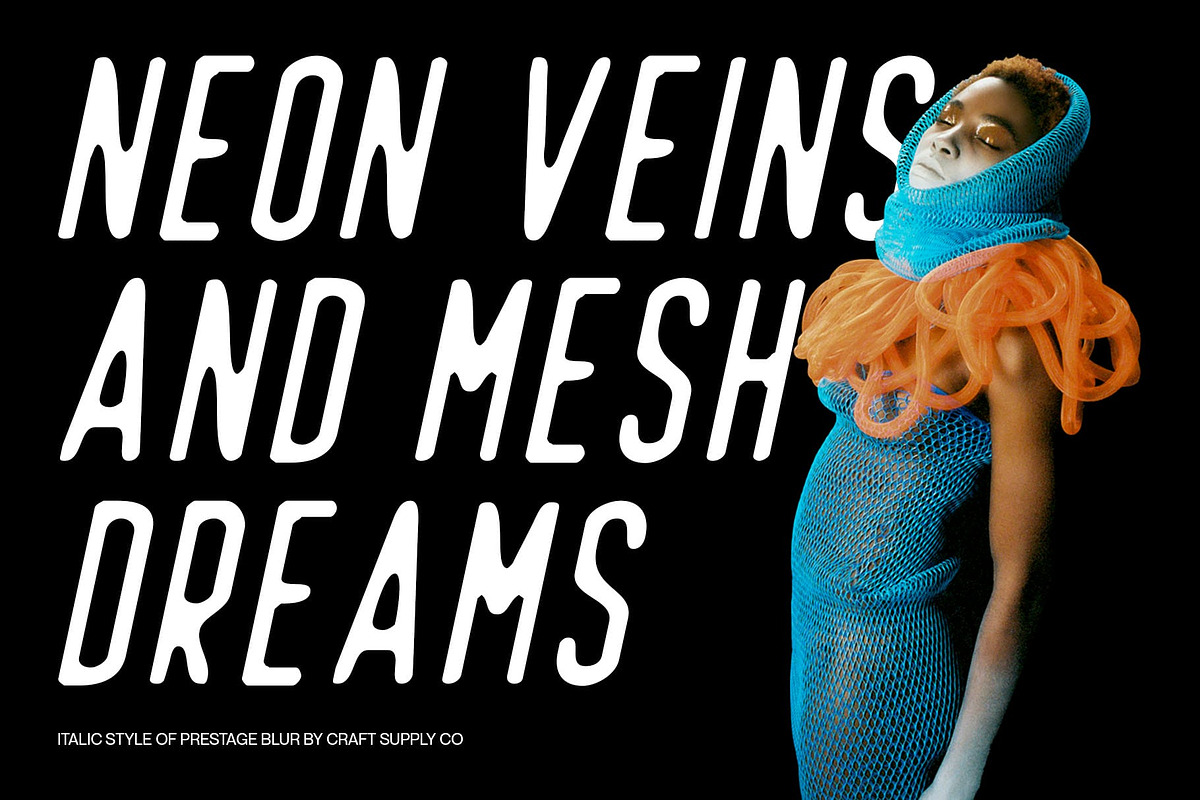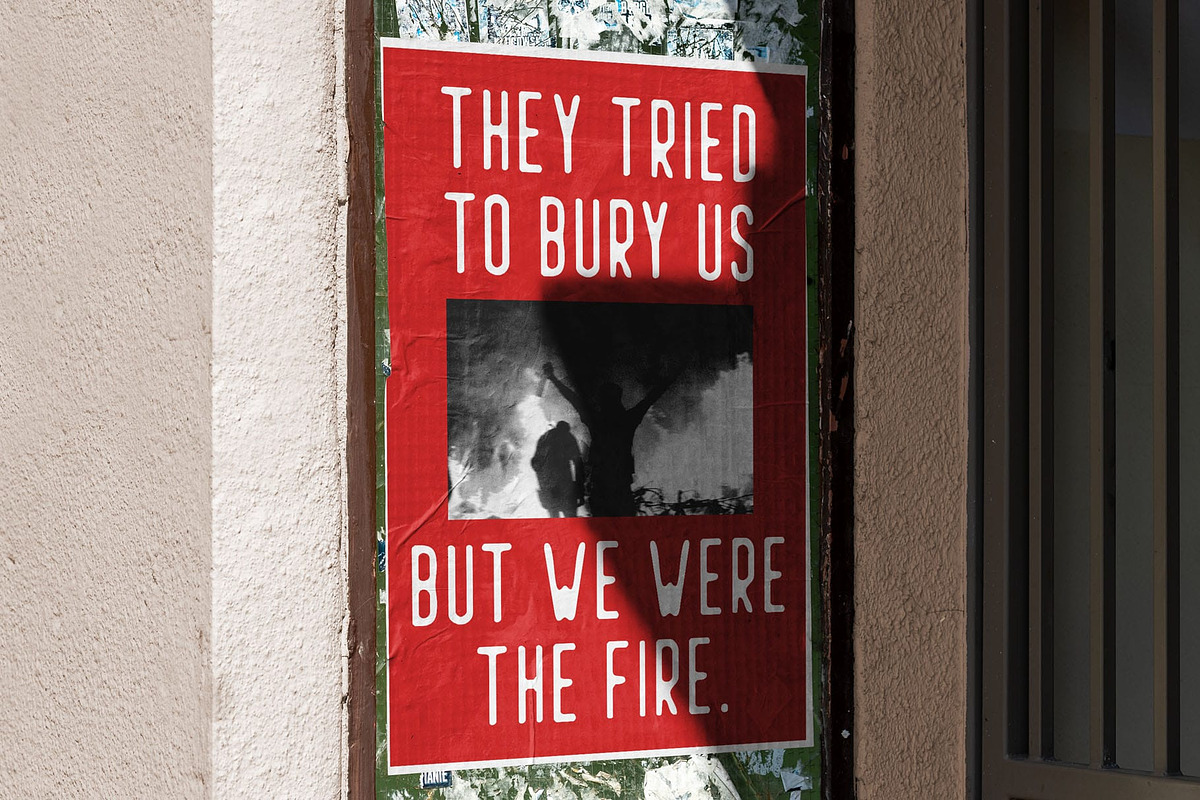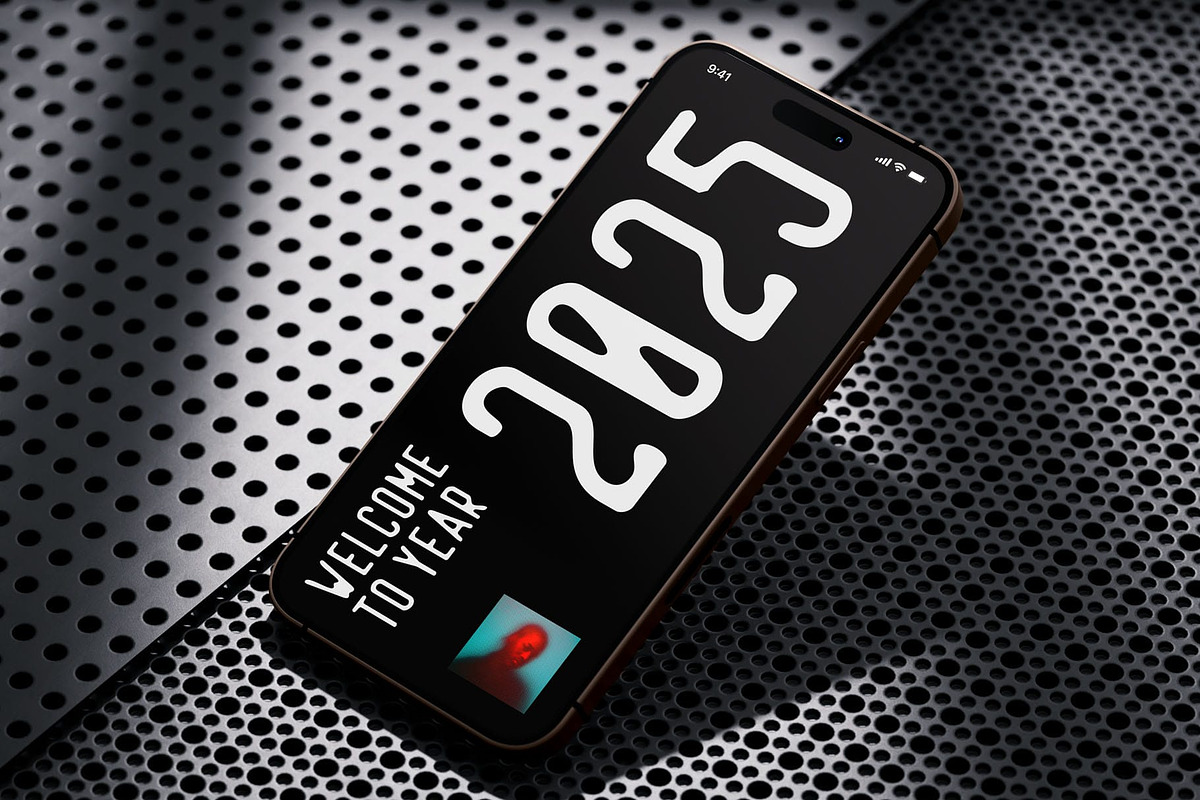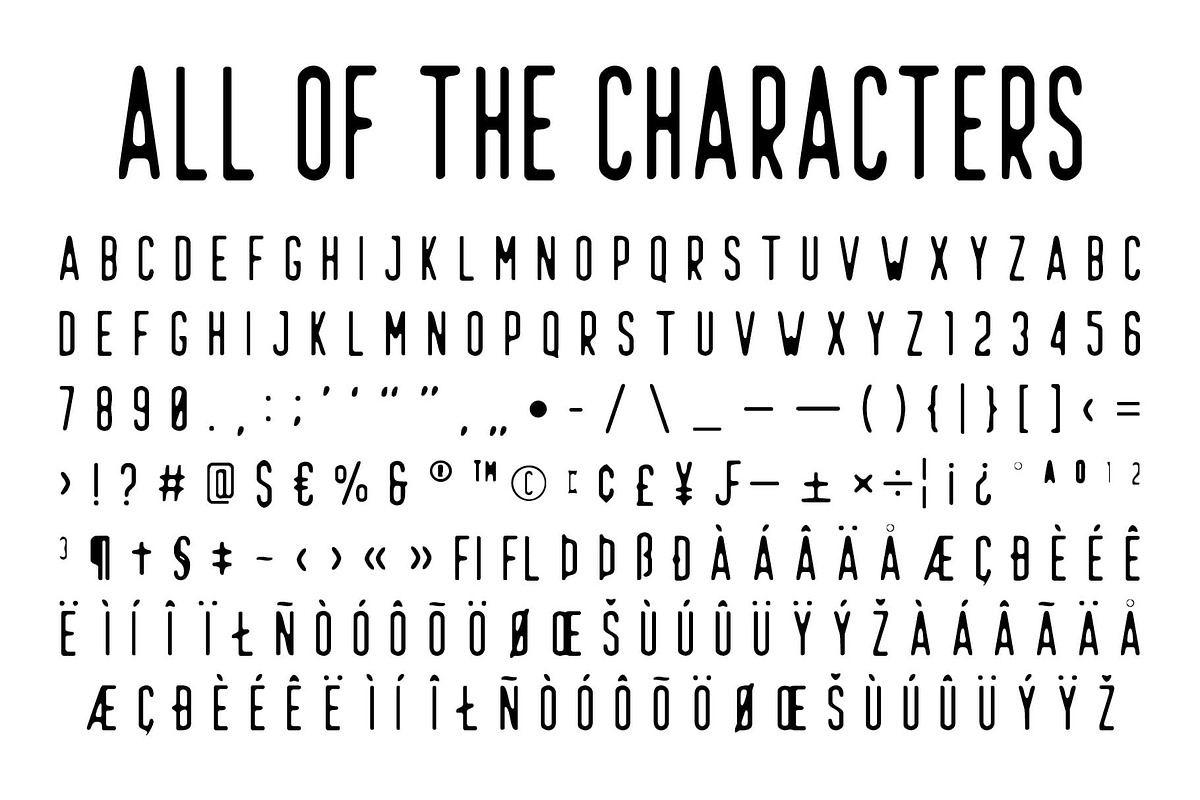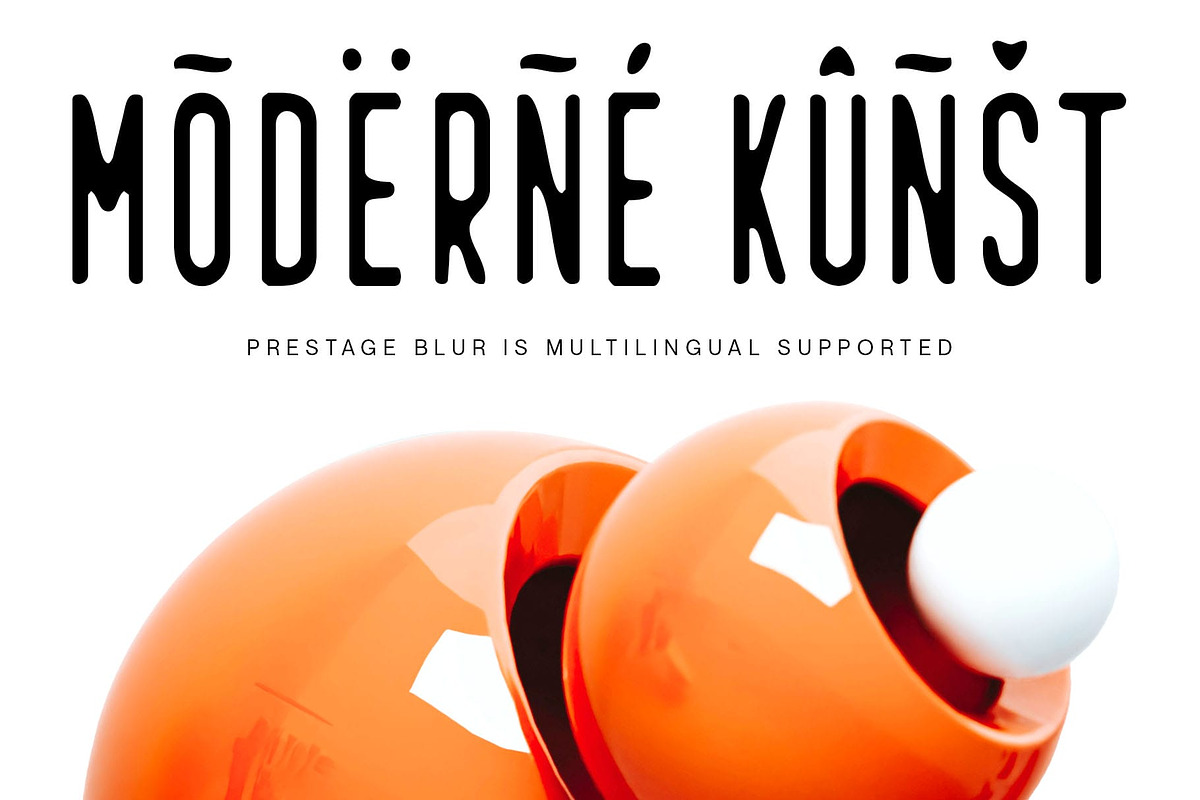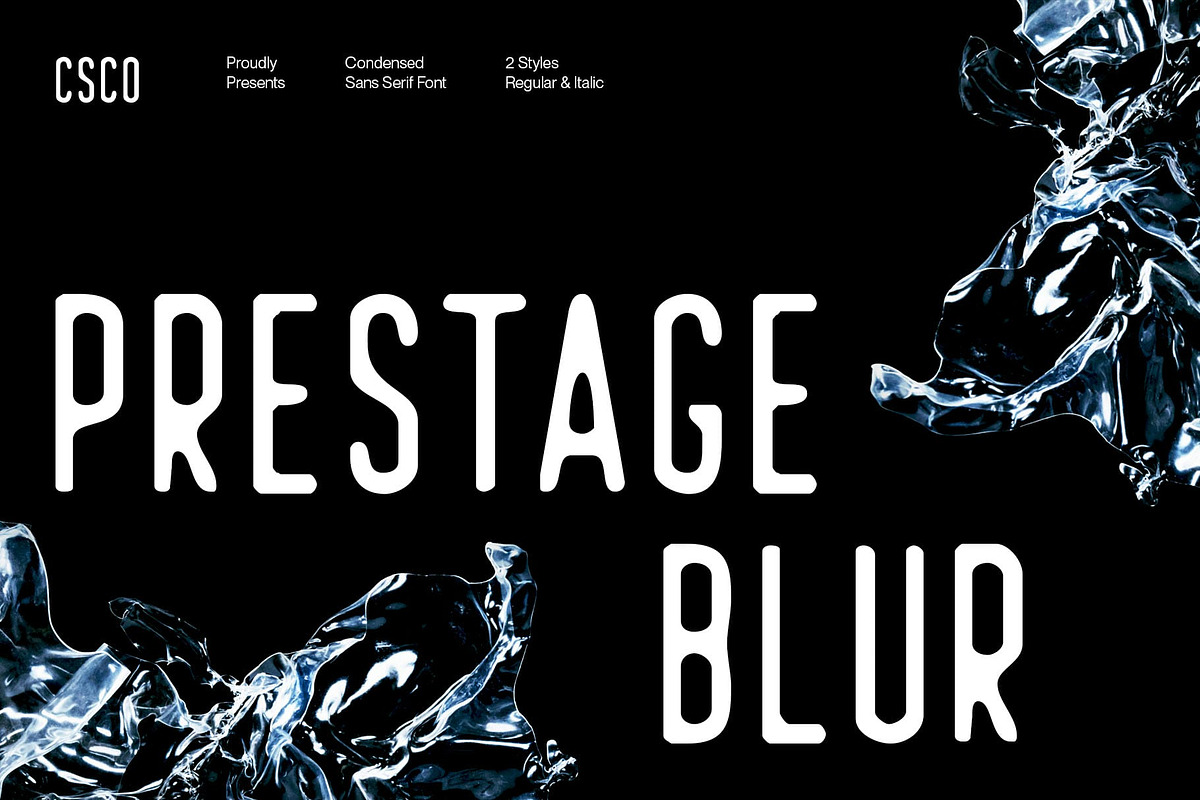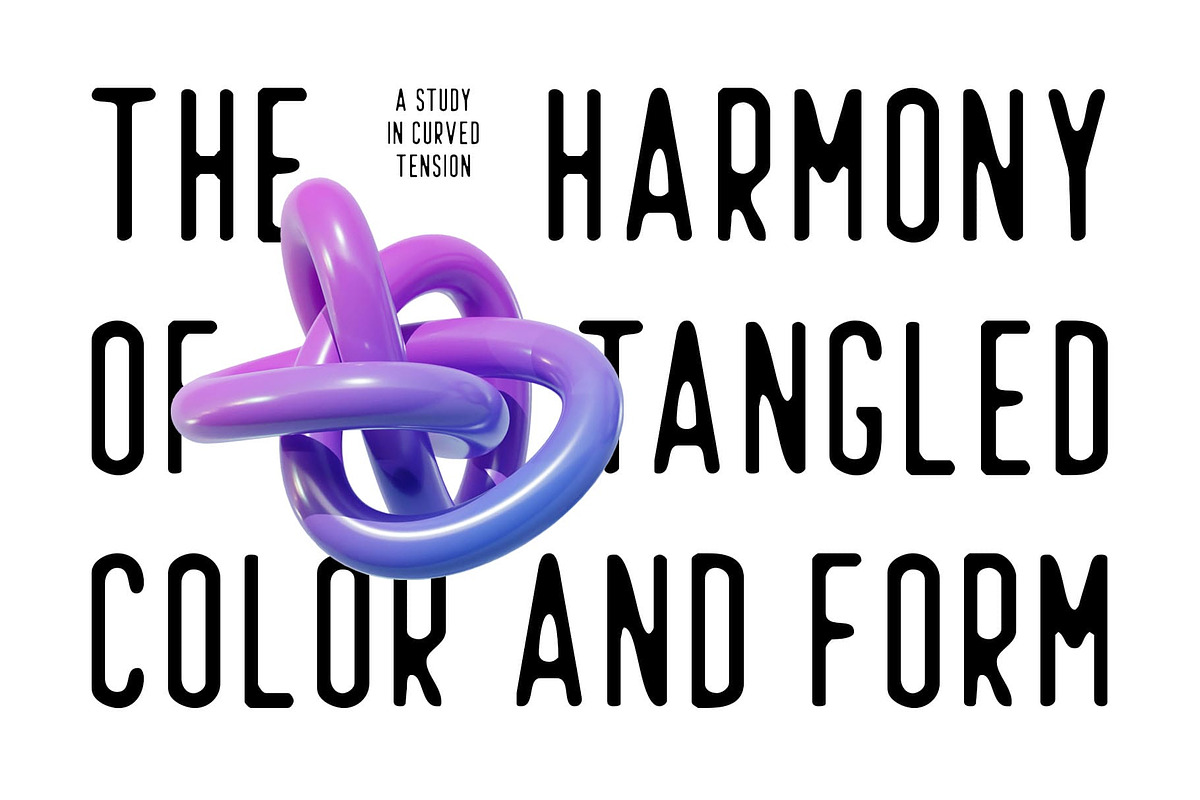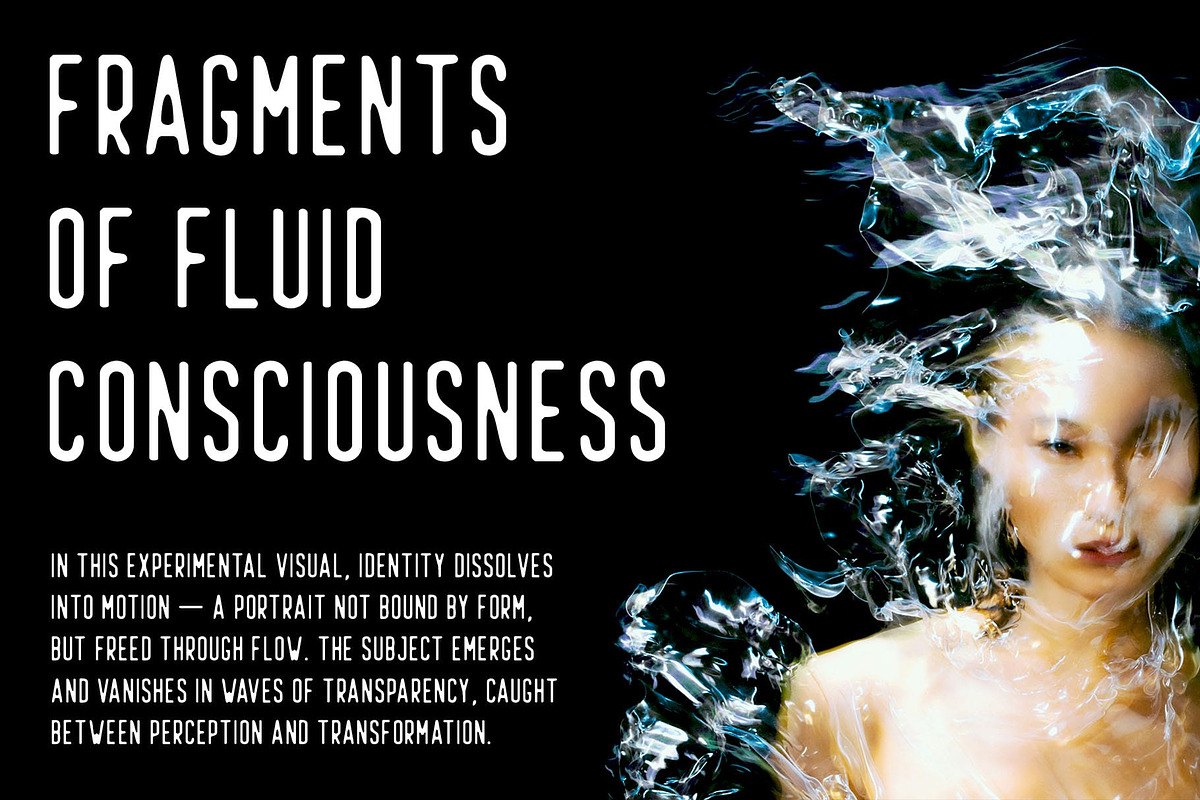
Prestage Blur
Prestage Blur – Futuristic Sans Serif Font with Soft Blur Effect
Sleek and Geometric Foundation Prestage Blur is a modern sans serif font that blends clean, minimalist design with a geometric structure. Its sharp lines and balanced proportions create a sleek and professional look, offering clarity and precision in layout.
Subtle Blur for Experimental Aesthetic What sets Prestage Blur apart is its soft blur effect applied to the letterforms, introducing a gentle haze that gives the font a unique, futuristic, and experimental character. This visual distortion adds depth and intrigue without sacrificing legibility, making the font both innovative and accessible.
Perfect for Bold and Creative Design Ideal for digital branding, editorial graphics, posters, and visual identities, Prestage Blur creates an immediate impact. Its balance between clean design and visual experimentation ensures it stands out while maintaining a polished, modern appeal.
Versatile and Forward-Thinking Style Whether you’re designing for a tech startup, an art-forward project, or a trend-conscious brand, Prestage Blur delivers a distinctive presence. Its futuristic blur and geometric base make it a go-to choice for creators looking to push boundaries while staying refined and contemporary.